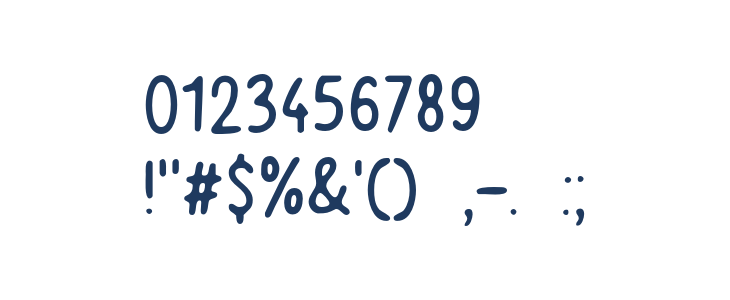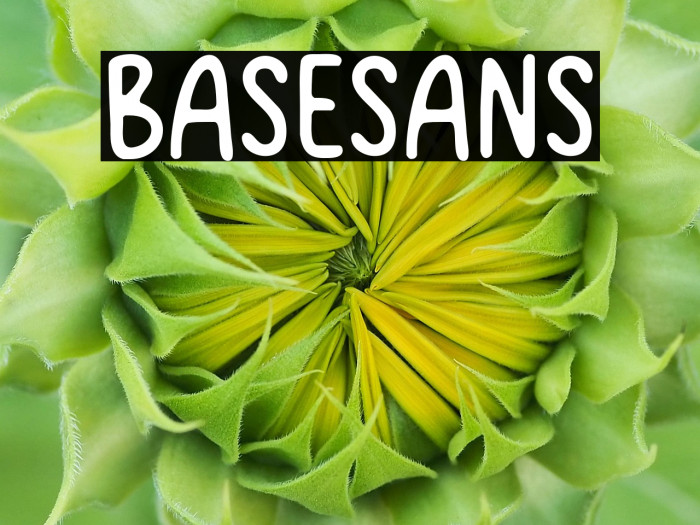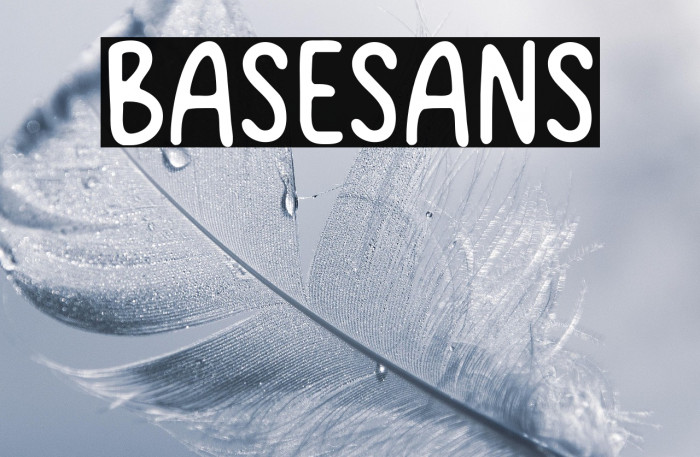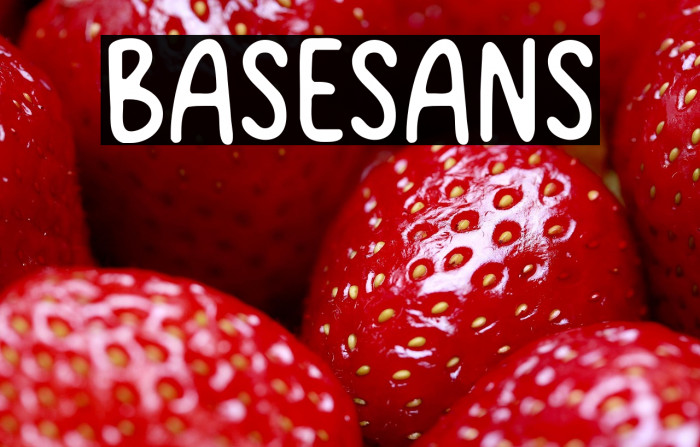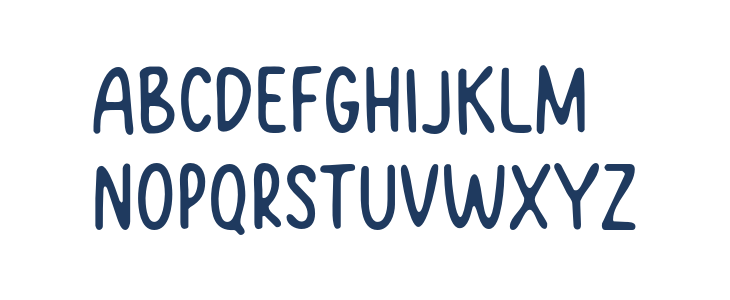
Basesans Font
Basesans Description
This font features a playful and rounded style, characterized by its smooth, flowing lines and uniform stroke width. The letters are slightly condensed, giving it a compact appearance while maintaining readability. The uppercase and lowercase letters share a consistent design, with rounded edges and a friendly, approachable feel. The numerals and special characters follow the same design principles, ensuring a cohesive look across all elements. This font's simplicity and charm make it suitable for a variety of applications, from children's books to casual branding projects.
| Width | Condensed |
| Overall Style | Playful |
| Proposed Projects | Ideal for children's books, casual branding, playful posters, and social media graphics. |